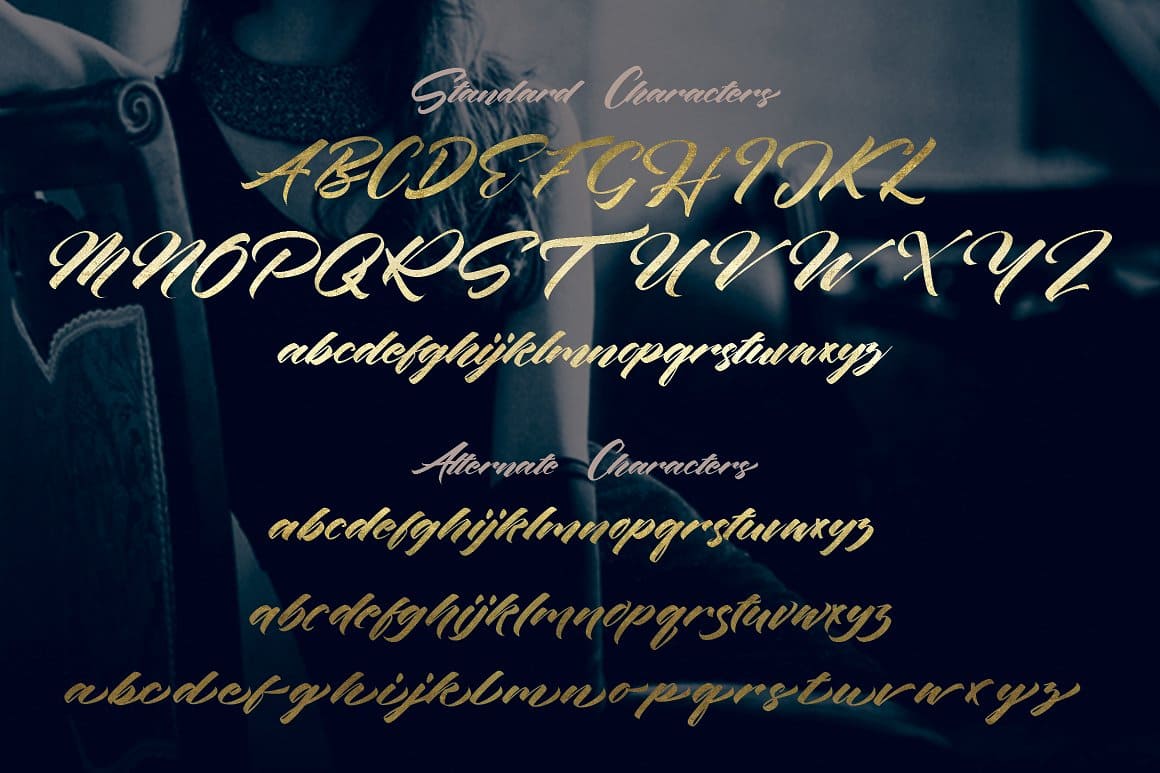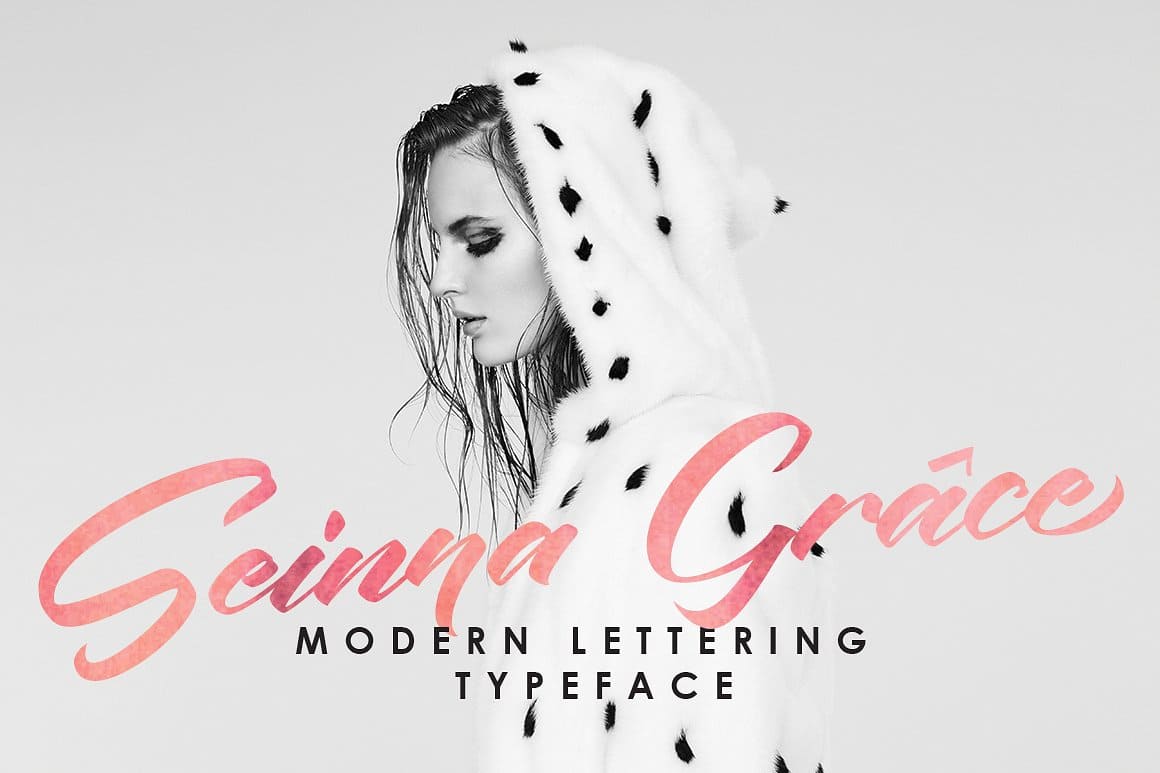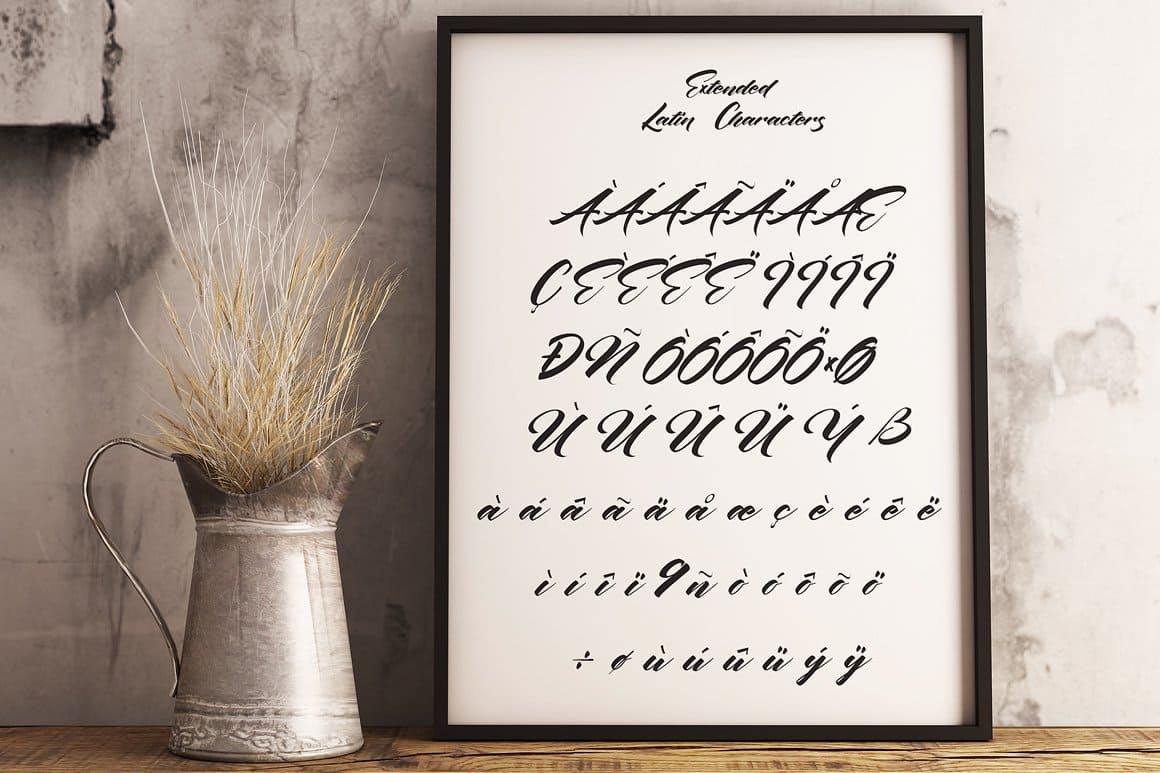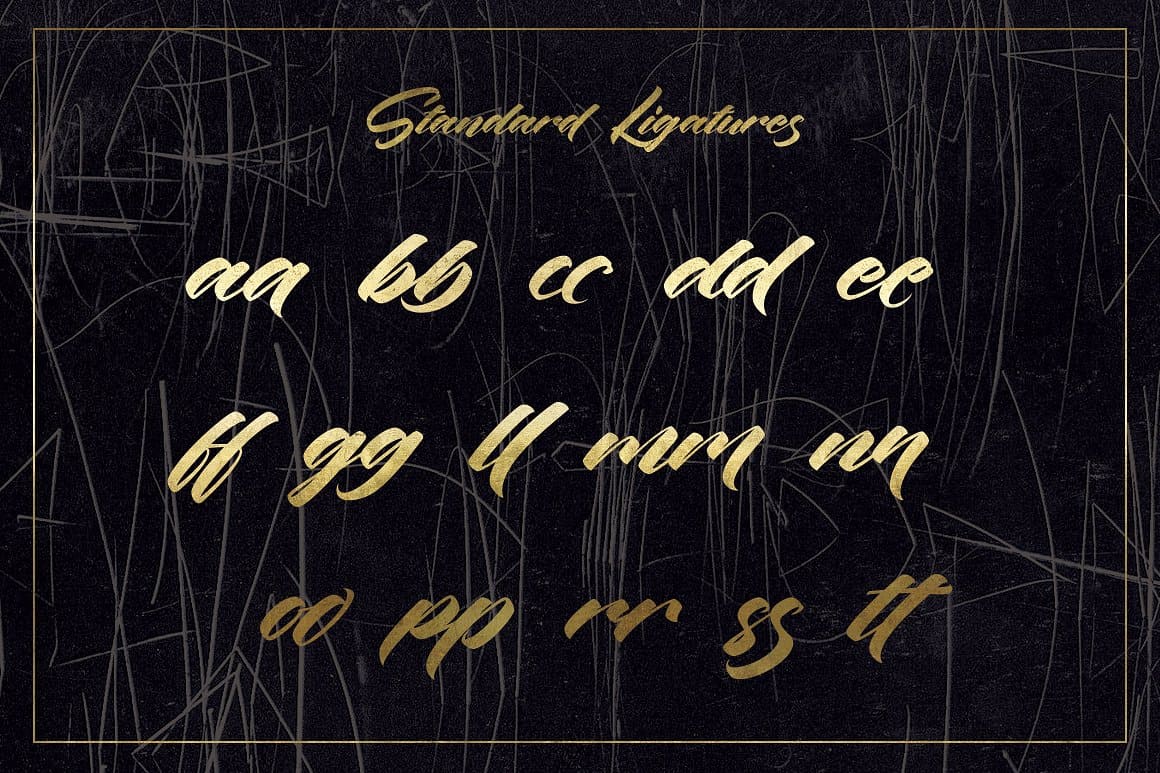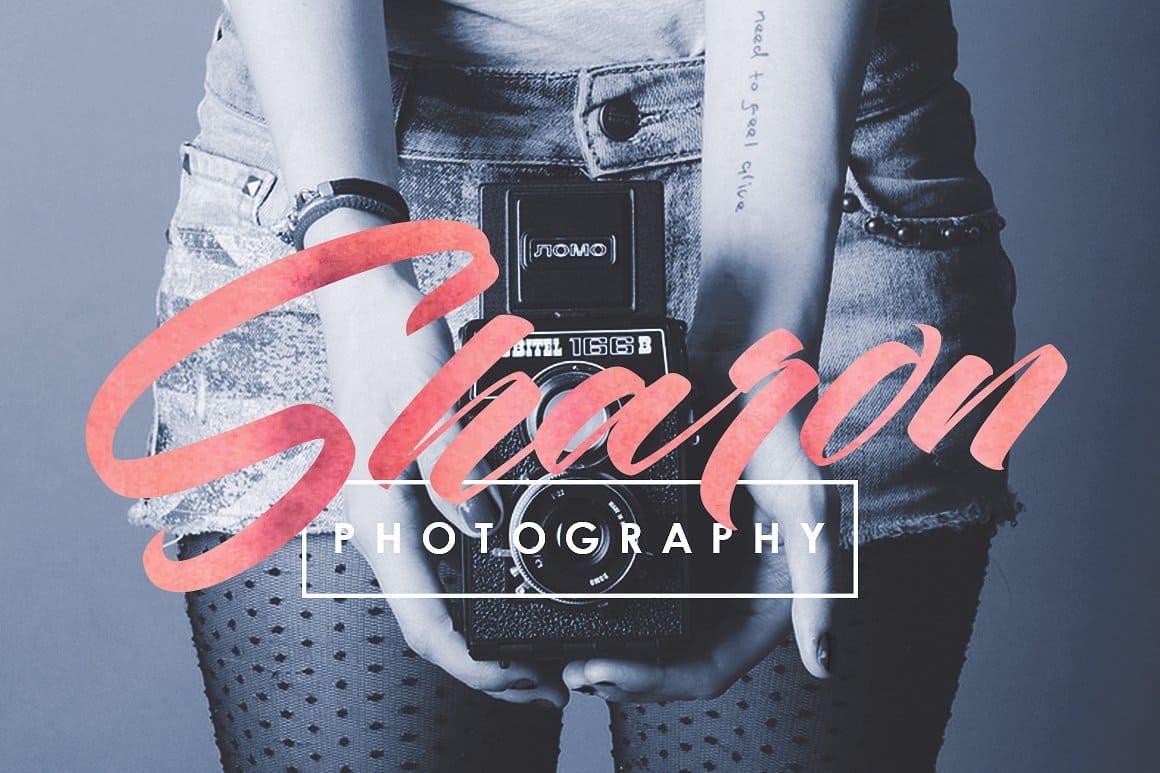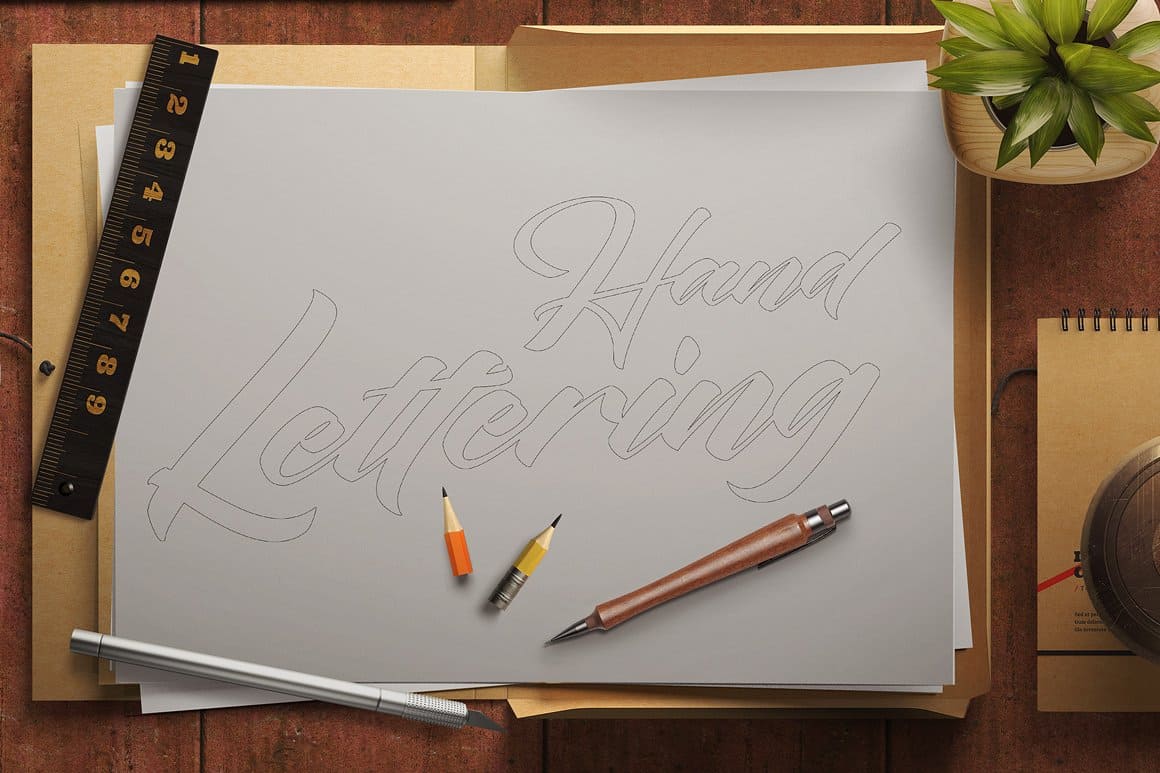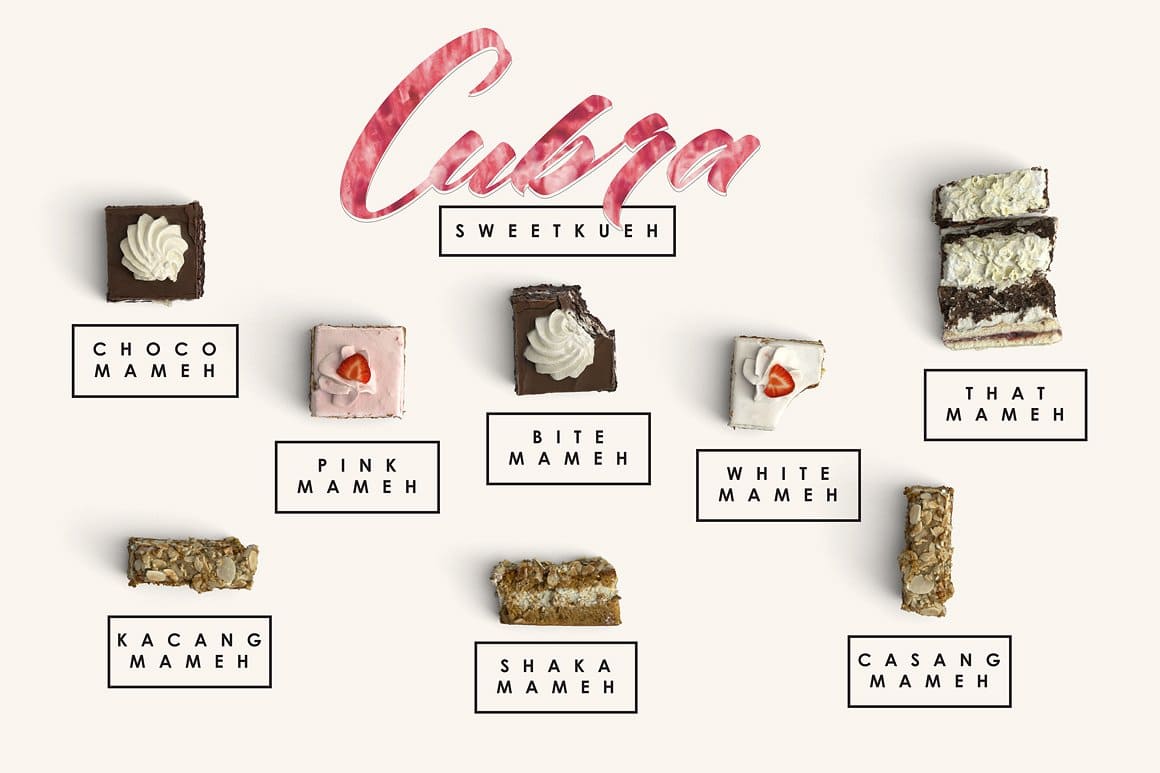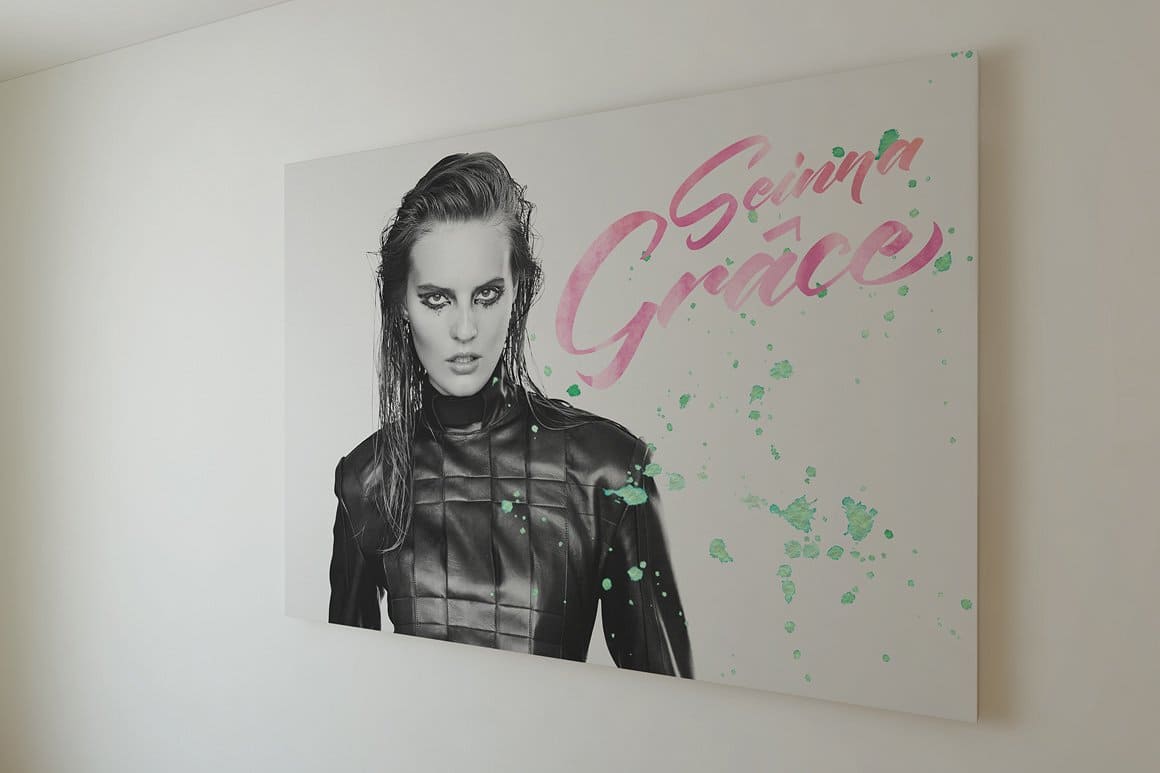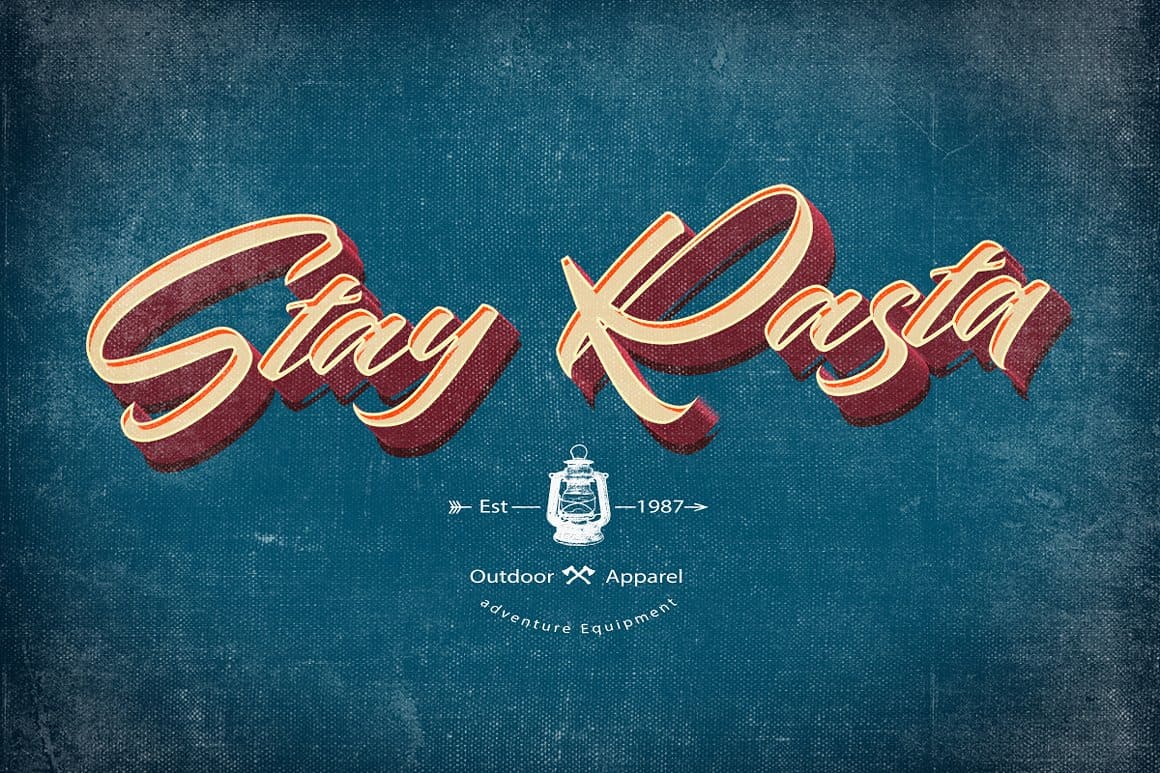
Seinna Grace (1 font)
Seinna Grace is designed with OpenType features, 327 glyphs and 82 alternate characters. The font also includes Standard Ligatures and stylistic alternate characters allowing you to make each word look elegant and professional. All special characters can be accessed by using OpenType savvy programs such as Adobe Illustrator, Adobe InDesign, Quark Express, CorelDraw X6-X7, Microsoft Word 2010, or later versions.